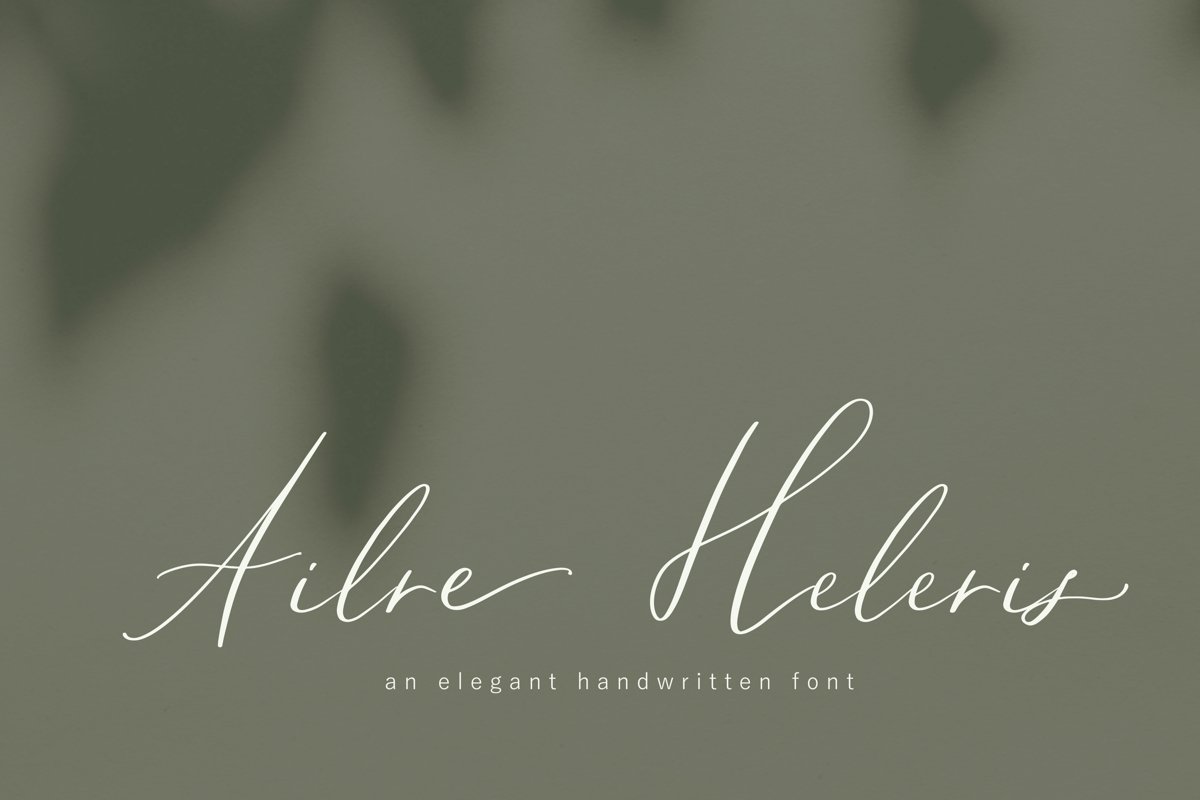
Ailre Heleris, an elegant script font
AilreHeleris
Ailre
Heleris is an elegant script font with an expression of natural
handwritten style that flows freely. Perfect for titling, long texts
that need handwritten feel, branding projects, social media, wedding
invitations, greeting cards, elegant packaging, headlines, posters.
It
features multi language support (for most of Western Europe),
contains
glyphs with some OpenType features – some standard ligatures,
alternates for lowercase letters (beginning and ending swashes)